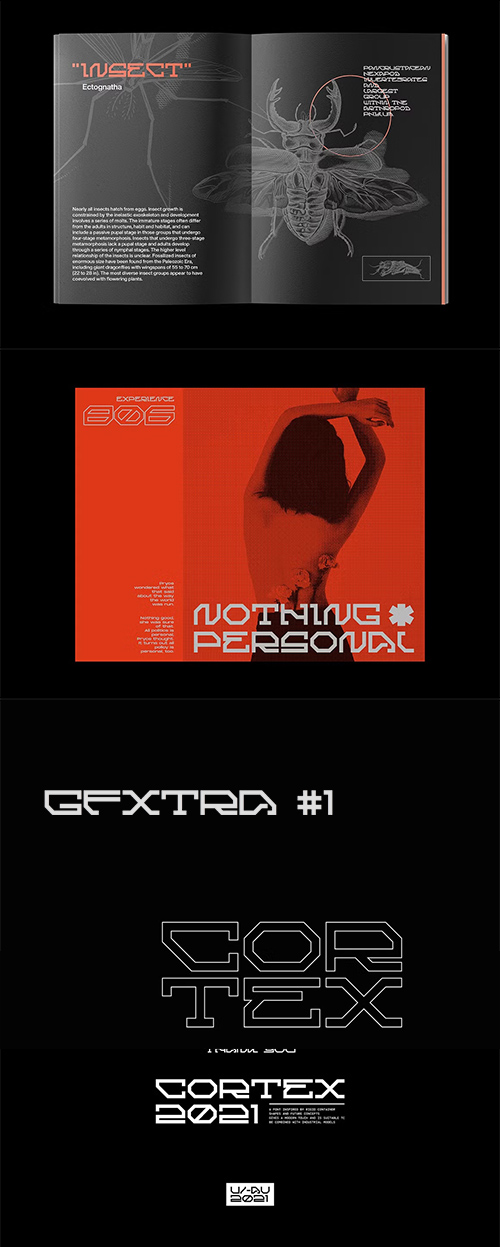
CM - Cortex - Display Font 7025309
"CORTEX" IS A FONT DESIGNED BY UNCARVING AND AVORTIC
- A FONT INSPIRED BY RIGID CONTAINER SHAPES AND FUTURE CONCEPTS GIVES A MODERN TOUCH AND IS SUITABLE TO BE COMBINED WITH INDUSTRIAL MODELS. GENESIS CAN BE USED EVEN FOR COMMERCIAL YOU MAY NOT SHARE THIS FONT, NEITHER ON WEBSITES OR TO OTHER COMPUTERS, UNLESS UNCARVINGS AND AVORTIC PERMISSION IS GIVEN.